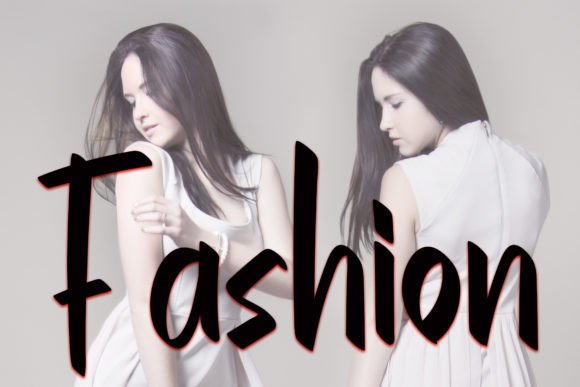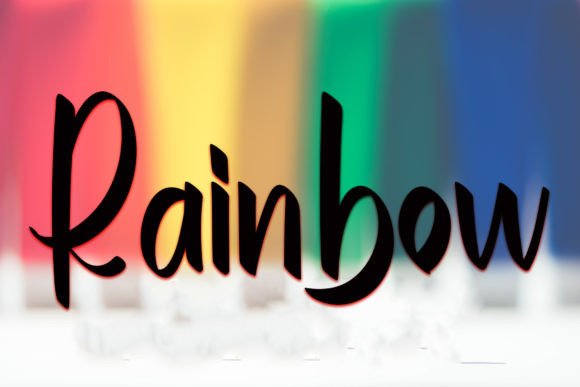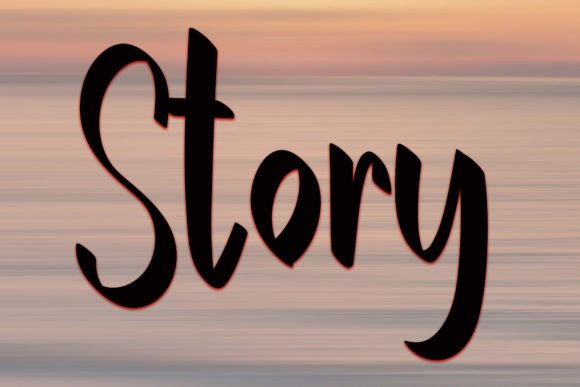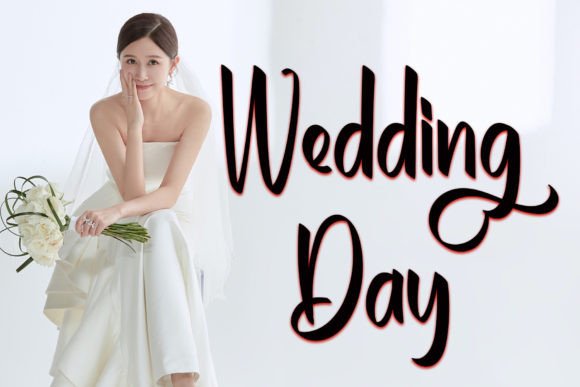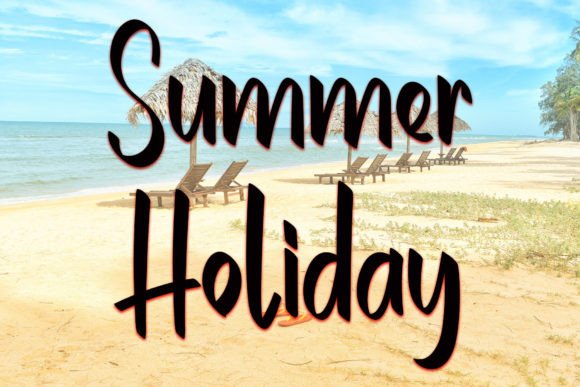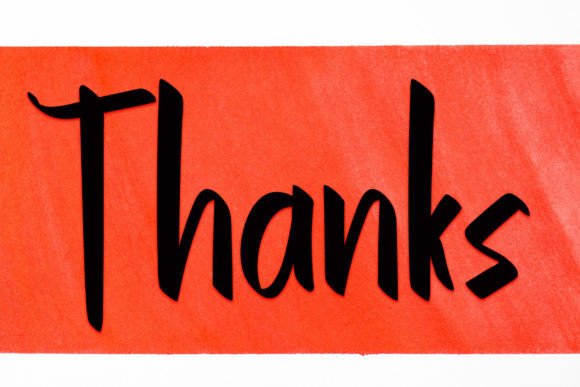
Discover the Elegance of Abigail Font: A Timeless Handwritten Script
Are you on the hunt for a font that exudes elegance, sophistication, and a touch of timeless charm? Look no further than the Abigail Font, a beautiful handwritten script that is sure to capture your heart. With its incredibly distinct style and versatile appeal, Abigail is the perfect addition to any design project, from crafting and branding to digital marketing and beyond.
The Characteristics of Abigail Font
Abigail Font is described as a neat and beautiful handwritten font, characterized by an elegant touch that sets it apart from other scripts. Its unique blend of classic and modern elements makes it an excellent choice for designers and crafters looking to add a touch of sophistication to their work.
One of the standout features of Abigail Font is its readability. Despite its elegant and cursive nature, the font remains clear and easy to read, making it perfect for use in a variety of applications, from body text to headings and titles.
The Benefits of Using Abigail Font
So, why should you choose Abigail Font for your next project? Here are just a few benefits of using this stunning script:
- Elegance and Sophistication: Abigail Font adds a touch of elegance and sophistication to any design project, making it perfect for high-end branding, luxury packaging, and more.
- Versatility: With its clean and classic design, Abigail Font can be used in a wide range of applications, from digital marketing materials to craft projects and handmade goods.
- Timeless Appeal: Unlike trendy fonts that quickly go out of style, Abigail Font has a timeless quality that ensures it will remain relevant for years to come.
- Easy to Read: Despite its elegant nature, Abigail Font is easy to read, making it perfect for use in body text and other applications where readability is key.
How to Use Abigail Font in Your Designs
Abigail Font is incredibly versatile, making it easy to incorporate into a wide range of design projects. Here are a few ideas to get you started:
- Branding and Logo Design: Use Abigail Font to create a sophisticated and elegant logo that sets your brand apart.
- Digital Marketing Materials: Add a touch of elegance to your digital marketing materials, including social media graphics, email newsletters, and more.
- Crafting and Scrapbooking: Use Abigail Font to add a personal touch to your crafting and scrapbooking projects, including handmade cards, gift tags, and more.
- Packaging Design: Add a touch of luxury to your packaging design with Abigail Font, perfect for high-end products and gifts.
Tips for Getting the Most Out of Abigail Font
To get the most out of Abigail Font, here are a few tips to keep in mind:
- Experiment with Font Sizes: Abigail Font looks great in a wide range of font sizes, from large headings to smaller body text.
- Pair with Other Fonts: Try pairing Abigail Font with other fonts to create a unique and eye-catching design.
- Use in Combination with Images: Abigail Font looks great in combination with images, particularly those with a vintage or classic feel.